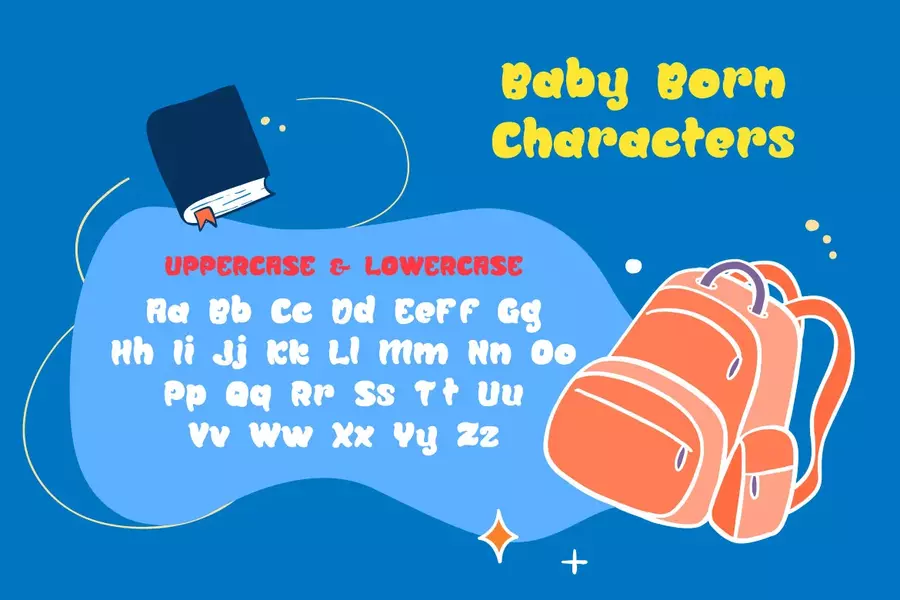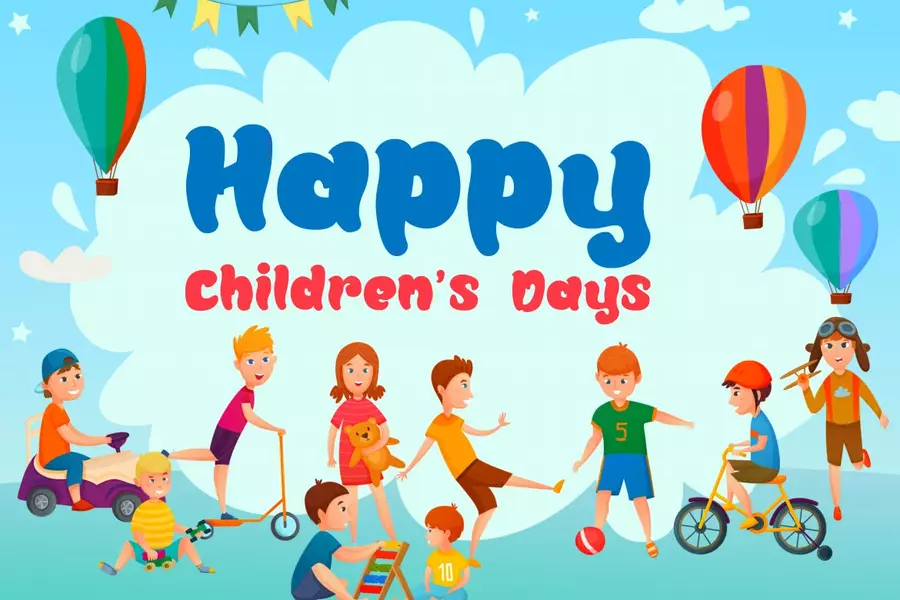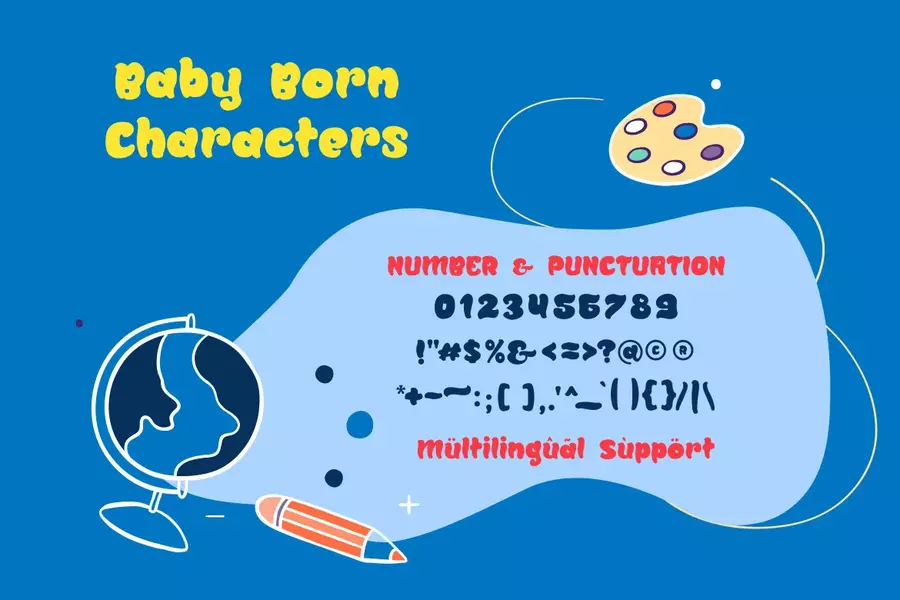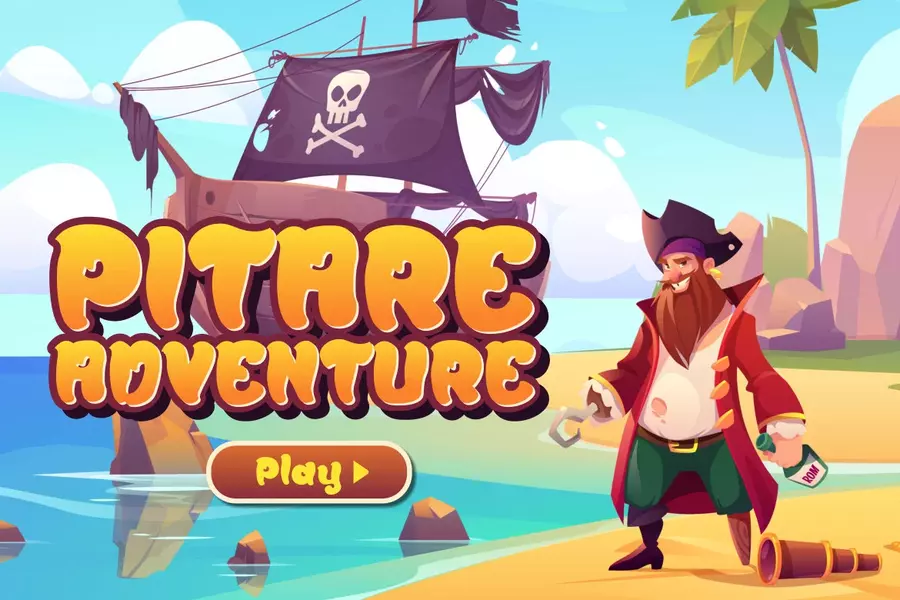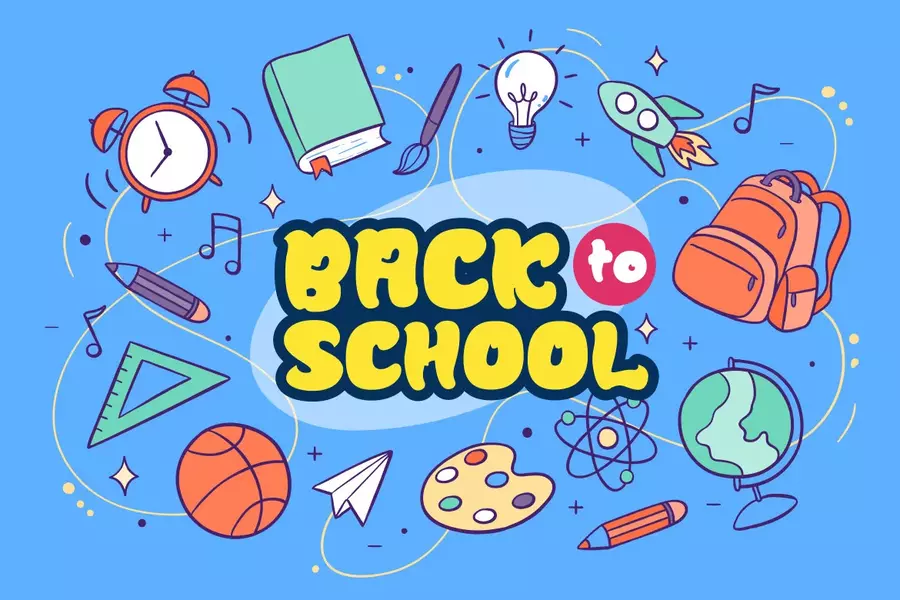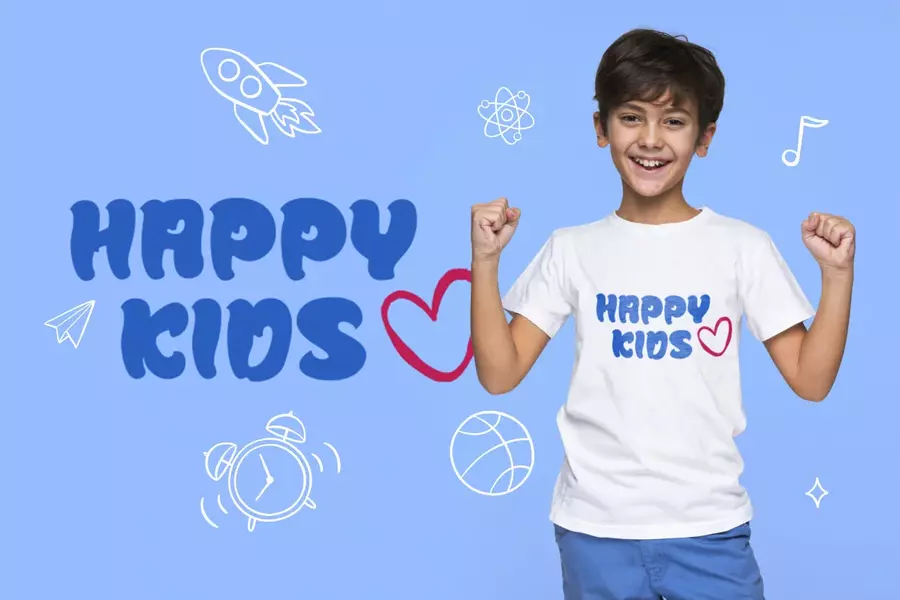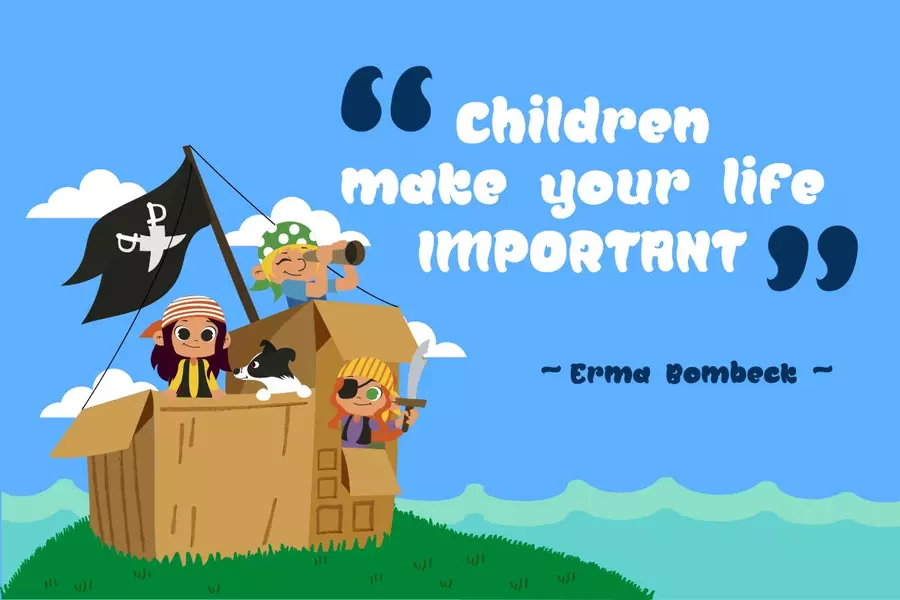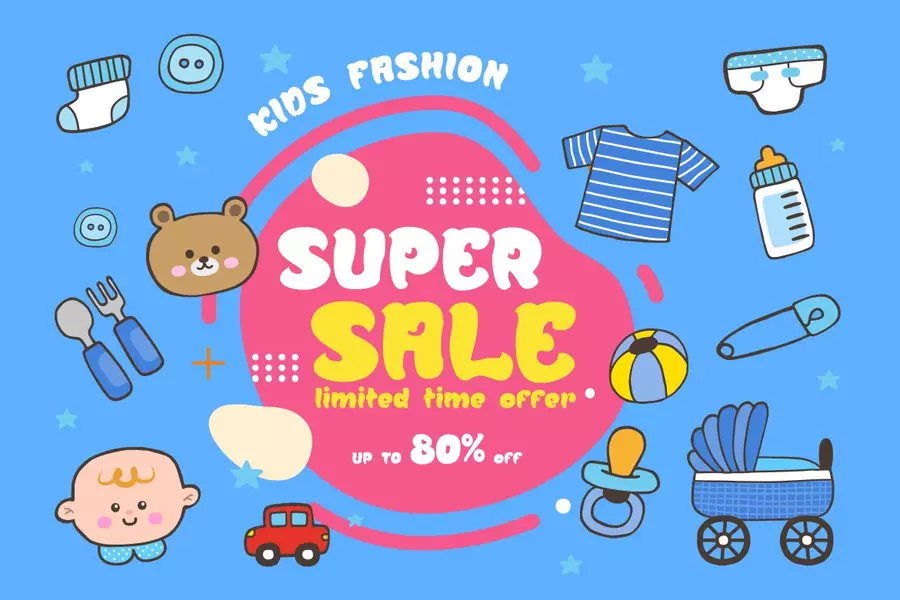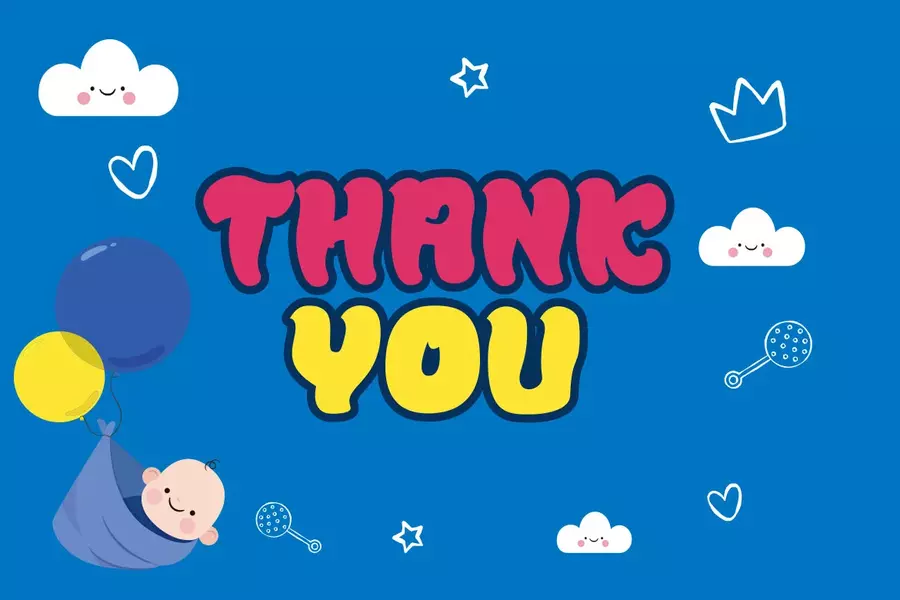
Baby Born – Playful Display Font
Baby Born is a playful and childish display font. It is suitable for greeting cards, birthday invitations, labels, packaging, t-shirt designs, logotypes and much more. Add this chunky lettered font to your designs and notice how it makes them come alive!